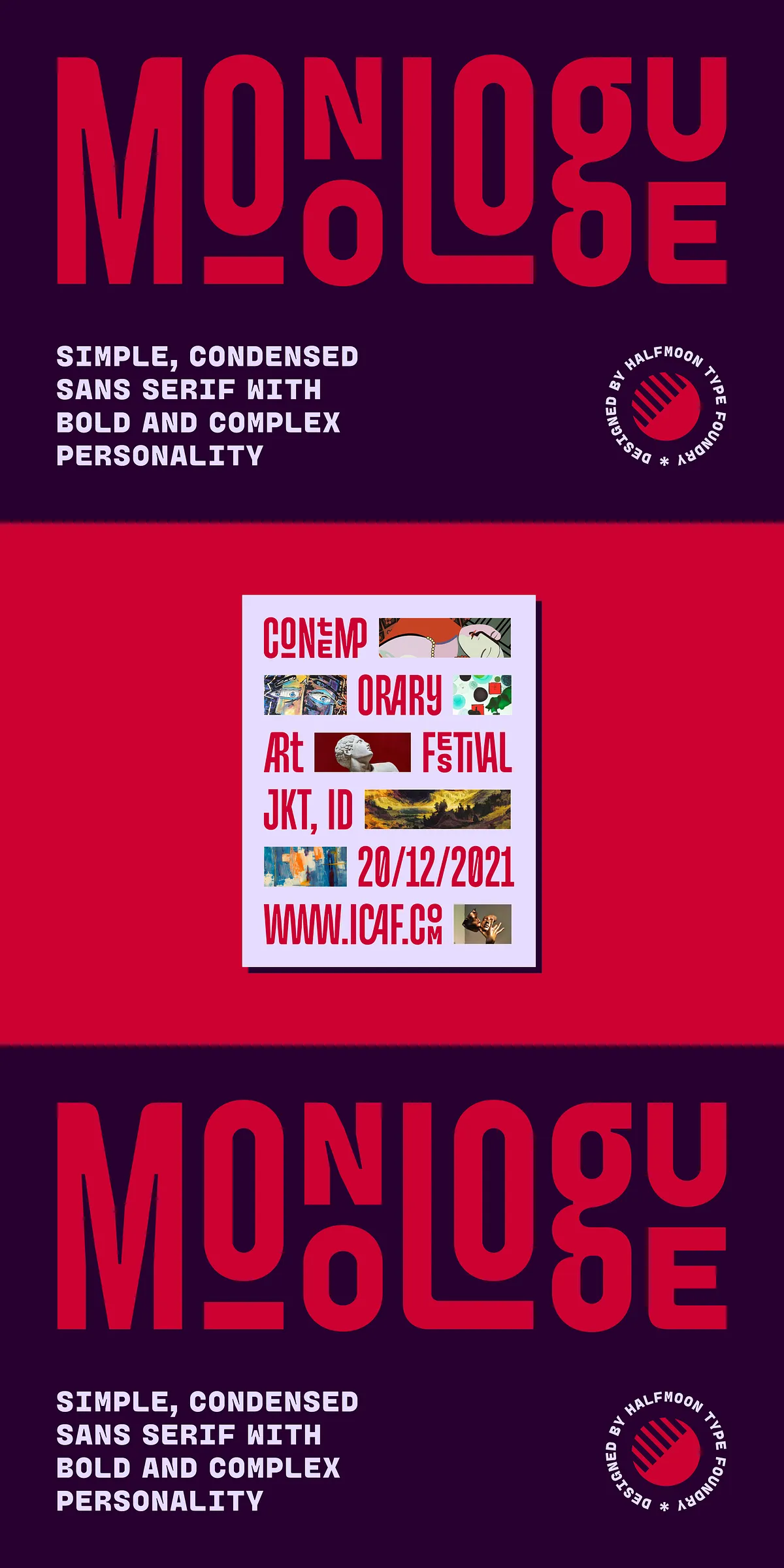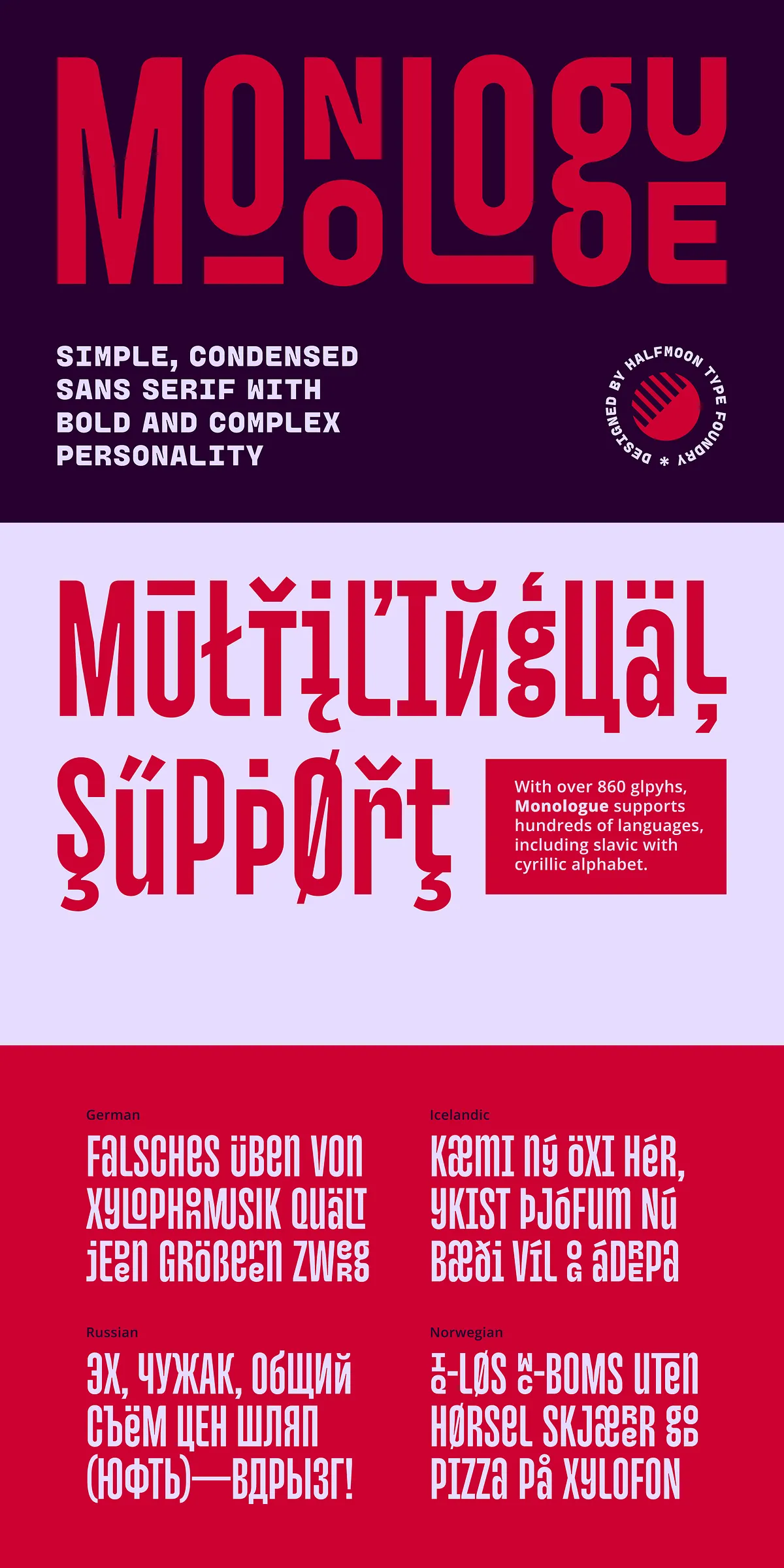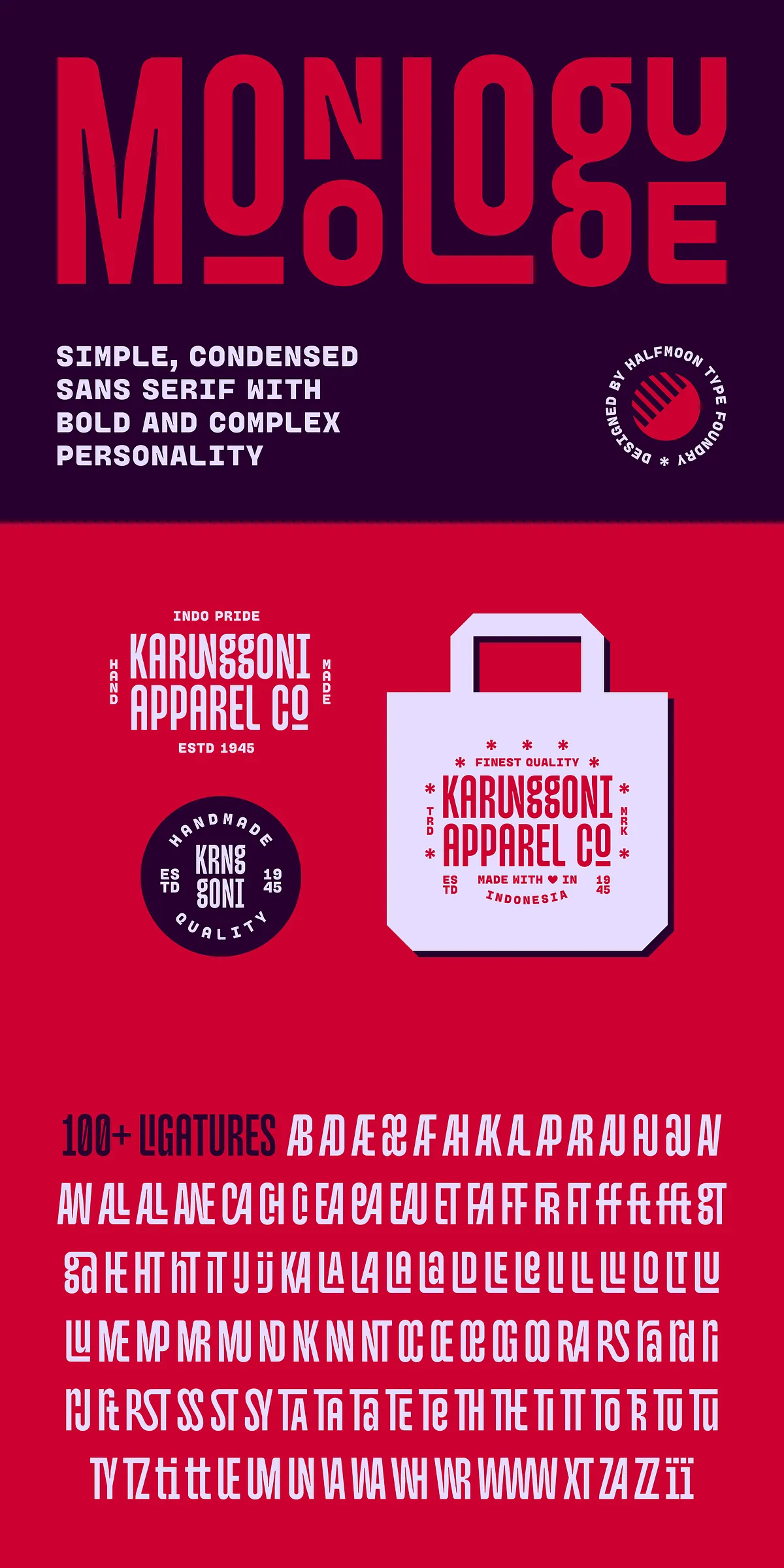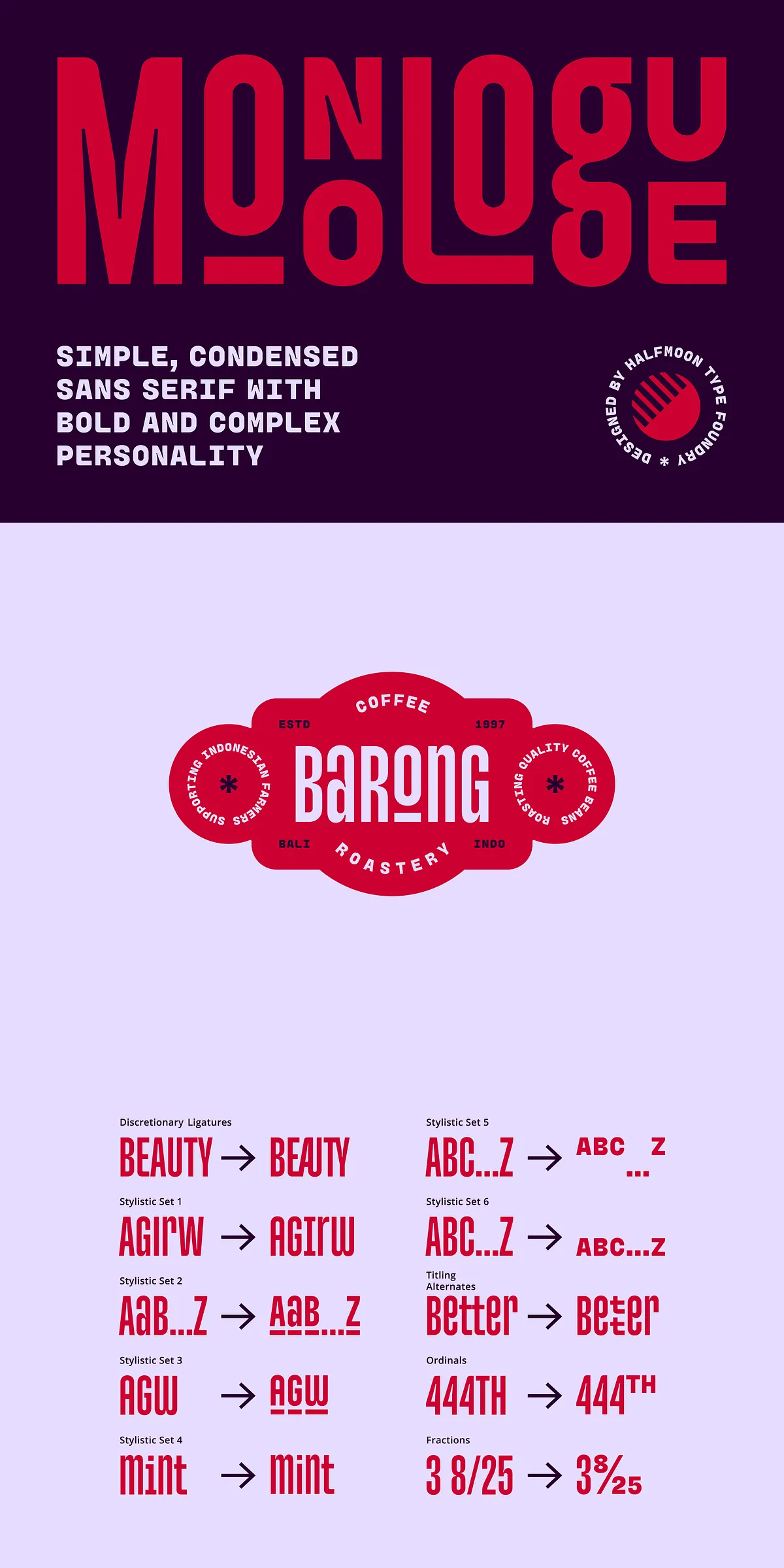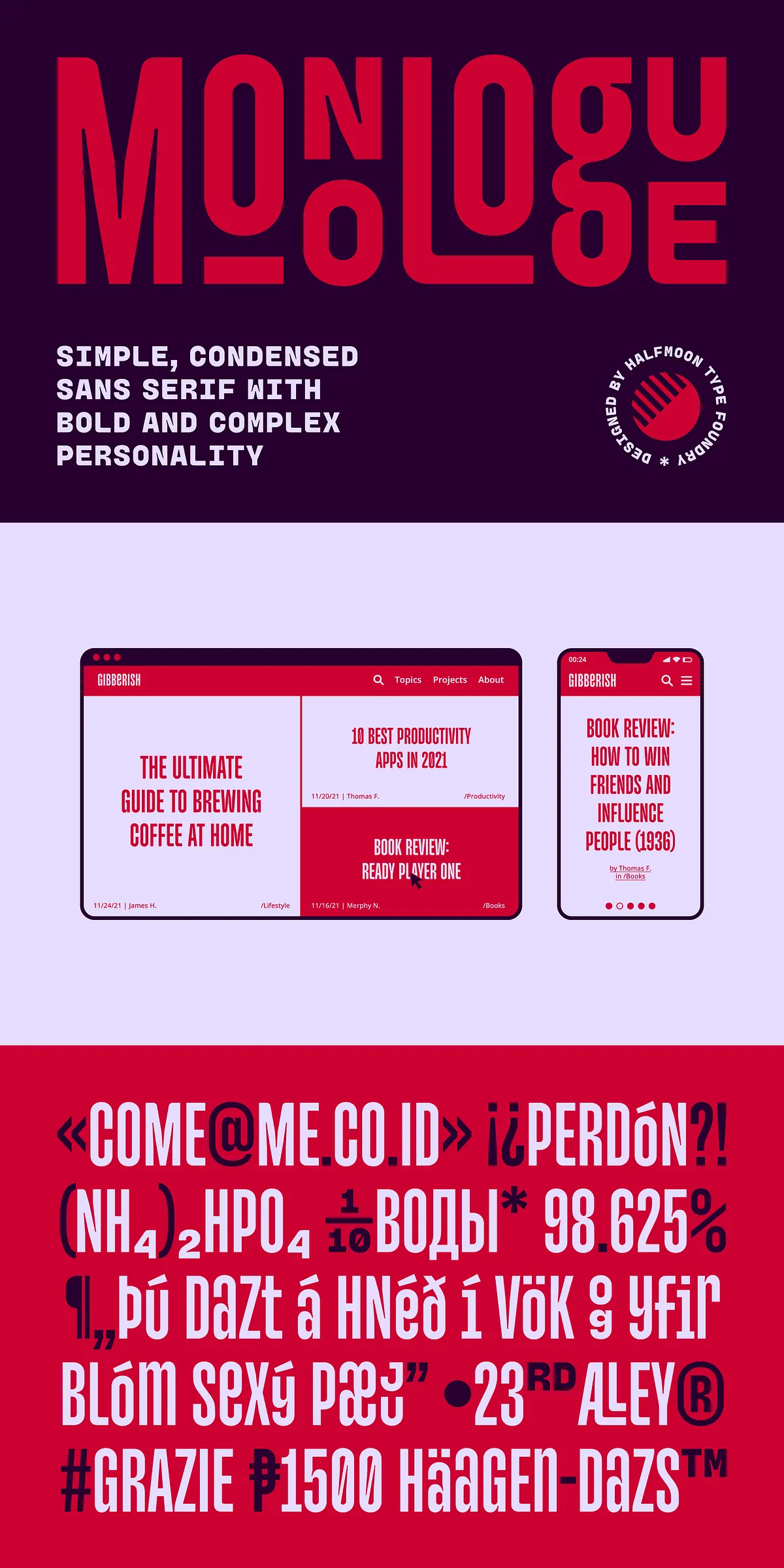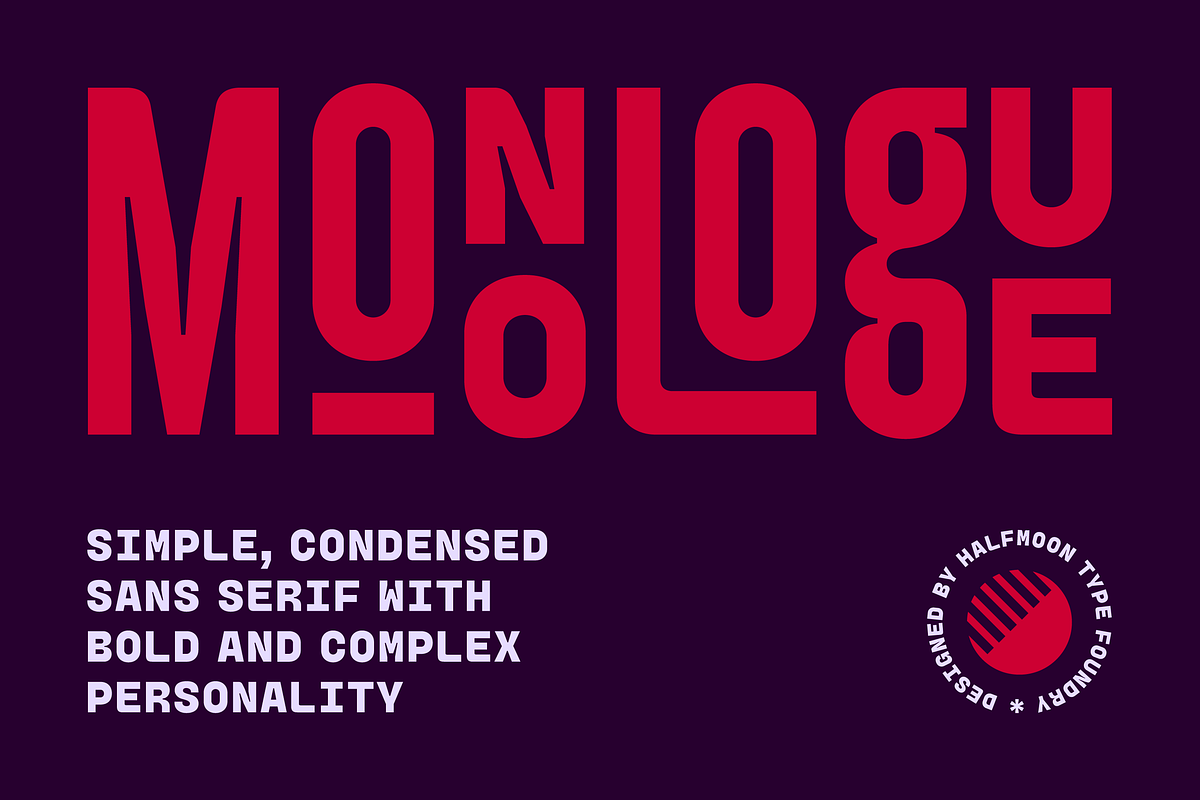
When you need a typeface that cuts through the noise, MONOLOGUE steps forward with authority. This is not a font for background text — it’s a visual command. Engineered for impact, MONOLOGUE combines a lean, condensed structure with a fiercely assertive personality, delivering maximum visual punch in every character. Whether you’re designing a towering billboard, a striking magazine cover, a powerful logo, or a sharp website header, MONOLOGUE ensures your message isn’t just seen — it’s remembered.
Engineered for Impact: Built for Large-Scale Presence
Designed explicitly for display use, MONOLOGUE thrives at large point sizes, where its bold forms and tight spacing create a commanding presence. But don’t be fooled — its power doesn’t vanish at smaller sizes. It maintains clarity, consistency, and character even in compact applications like mobile UI elements or social media captions. This dual-purpose strength makes it a rare gem: equally effective on a 20-foot sign and a business card.
Every stroke is deliberate, every counter is open, and every letterform is crafted to maximize legibility under pressure — essential for outdoor signage, editorial headlines, and digital ads where clarity is non-negotiable.
Advanced Typographic Features for Distinctive Design
MONOLOGUE isn’t just bold — it’s intelligent. It’s packed with professional-grade typographic tools to help you craft unique, polished layouts:
- 100+ Discretionary Ligatures: Eliminate awkward letter spacing and create fluid, dynamic wordforms. From “fi” to “ff”, MONOLOGUE delivers smooth connections that elevate your design’s premium feel.
- Stylistic Alternates and Sets (ss01–ss06): Access curated variations to personalize your message. Swap in alternative strokes, terminals, or glyph shapes to give your design a custom, hand-curated look — perfect for identity work and premium branding.
- Ordinals, Fractions & Super-scripts: Need to typeset “1st”, “2nd”, or “3rd”? MONOLOGUE has you covered with proper ordinals. Use preconstructed fractions and suprascript numerals for flawless typographic hierarchy in headlines, testimonials, and editorial content.
- Fully Kerned, Spaced, and Hinted: Designed with cross-platform compatibility in mind. Whether on screen or in print, MONOLOGUE renders beautifully thanks to professional hinting and spacing algorithms that ensure crisp, clean output across devices and resolutions.
Designed for Global Communication: Extensive Language Support
MONOLOGUE speaks more than one language — literally. It features comprehensive support for the Basic Latin character set, including numerals, punctuation, and symbols. But it doesn’t stop there. With full Cyrillic alphabet support, it’s ready to serve Slavic languages and global audiences with ease. This makes it ideal for international brands, multilingual publications, and digital platforms seeking typographic consistency across markets.
Use MONOLOGUE with confidence across diverse content, knowing that every letter — from “А” to “Я” — is crafted with the same precision as its Latin counterparts.
Real-World Applications: Where MONOLOGUE Shines
Perfect for any project that demands attention, style, and authority:
- Billboard & Outdoor Advertising: Its bold, condensed structure ensures legibility from a distance, making it perfect for high-traffic zones and commercial signage.
- Magazine & Editorial Headlines: Command attention on newsstands with a typeface that feels modern, dynamic, and editorially sharp.
- Logo & Brand Identity: Create bold, memorable logos that stand out from the crowd. MONOLOGUE adds a layer of visual confidence to your brand’s voice.
- Posters & Event Promotions: Use it to highlight dates, locations, and themes in posters where impact is everything.
- Website Headlines & UI Elements: Pair it with a lighter font for body text to create strong visual contrast and hierarchy on digital platforms.
- Product Packaging & Merchandise: Elevate your product’s perceived value with striking typography that screams quality and intention.
Seamless Integration, Instant Results
The Power of Precision: Why MONOLOGUE Is Different
In a sea of generic, overused display fonts, MONOLOGUE stands apart. It’s not trying to be everything to everyone — it’s focused on what it does best: delivering bold, clear, and visually compelling typography that commands attention. It’s a font that doesn’t shout — it announces.
Choose MONOLOGUE when you’re not just designing a logo or headline — you’re crafting a moment. A statement. A reaction.
Make your next project not just seen — but felt. Choose MONOLOGUE.